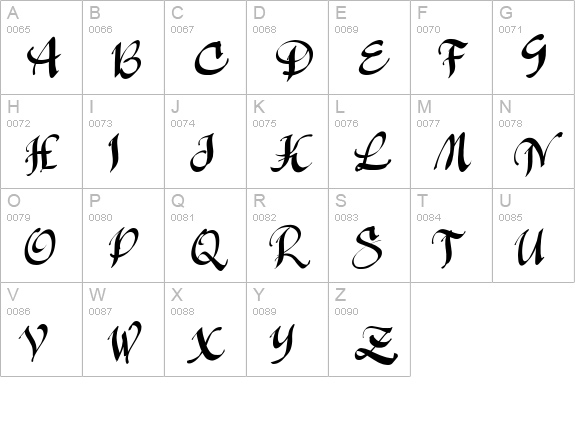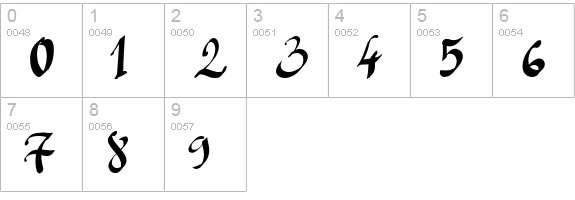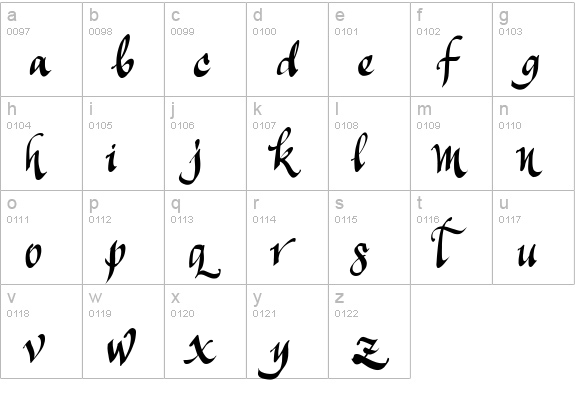
Introducing Manualito-Flo, a captivating and versatile font that effortlessly combines elegance with a touch of whimsy. This font exudes a sense of playfulness and charm, making it perfect for a wide range of design projects. With its unique and eye-catching letterforms, Manualito-Flo is sure to captivate your audience and leave a lasting impression. Whether you're creating a logo, designing a website, or crafting a beautiful invitation, this font will add a touch of sophistication and creativity to any project. What sets Manualito-Flo apart is not only its stunning aesthetic but also its accessibility. This font is freely available to download at FontsMarket.com, ensuring that designers of all backgrounds can easily incorporate it into their work. Say goodbye to limited resources and hello to endless possibilities. The versatility of Manualito-Flo is truly remarkable. Its clean lines and smooth curves make it ideal for both digital and print applications. From headlines to body text, this font adapts seamlessly to various sizes and formats, ensuring legibility and clarity in every context. With a wide range of glyphs and ligatures, Manualito-Flo provides endless options for customization and creative expression. Experiment with different letter combinations and unleash your imagination to create truly unique and captivating designs. Whether you're a seasoned designer or just starting your creative journey, Manualito-Flo is a font that will inspire and elevate your work. Its timeless appeal and free availability make it a must-have addition to any font collection. Download Manualito-Flo today at FontsMarket.com and unlock the potential to create stunning designs that truly stand out.